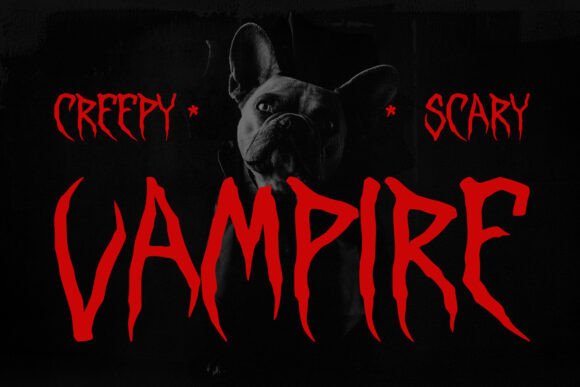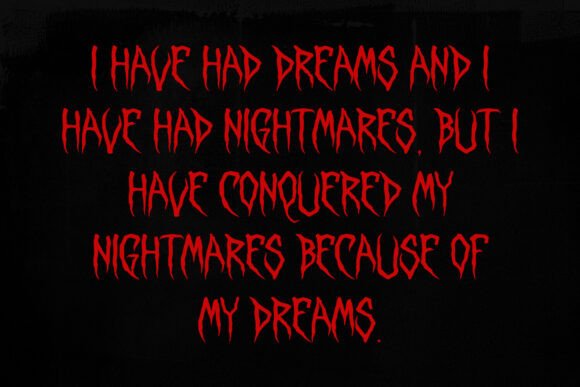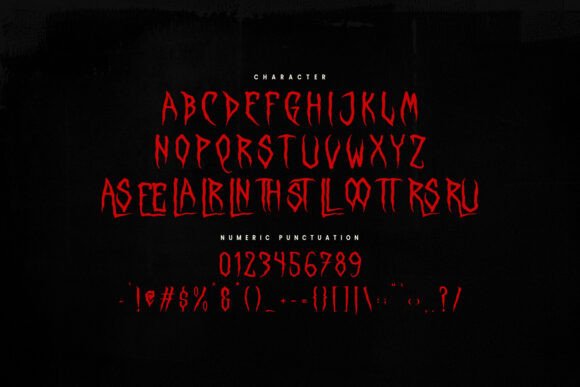
Introduction to Maszell Font
Maszell is a spooky, bold display font perfect for horror themes.
Its jagged, sharp letters give a chilling vibe, making it ideal for Halloween designs, scary posters, and eerie logos .